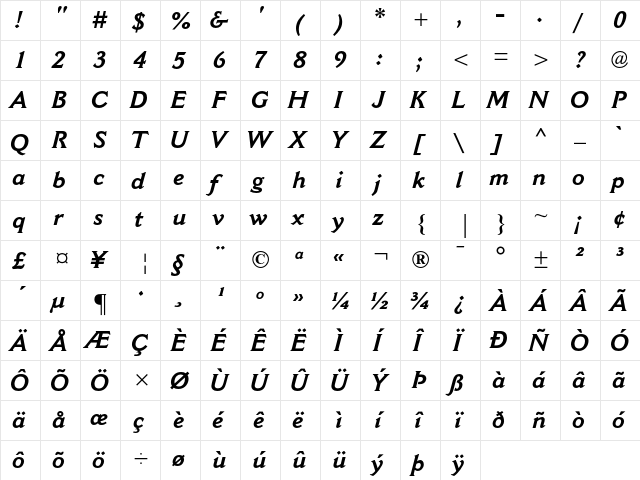
Cantoria MT Bold Italic
Design Context for Cantoria MT Typeface
Cantoria MT offers clean, dependable letterforms without strong stylistic allegiance, making it a practical choice for designers who need flexibility. The slanted form adds forward momentum and visual energy. The heavy weight commands attention and anchors typographic hierarchies.